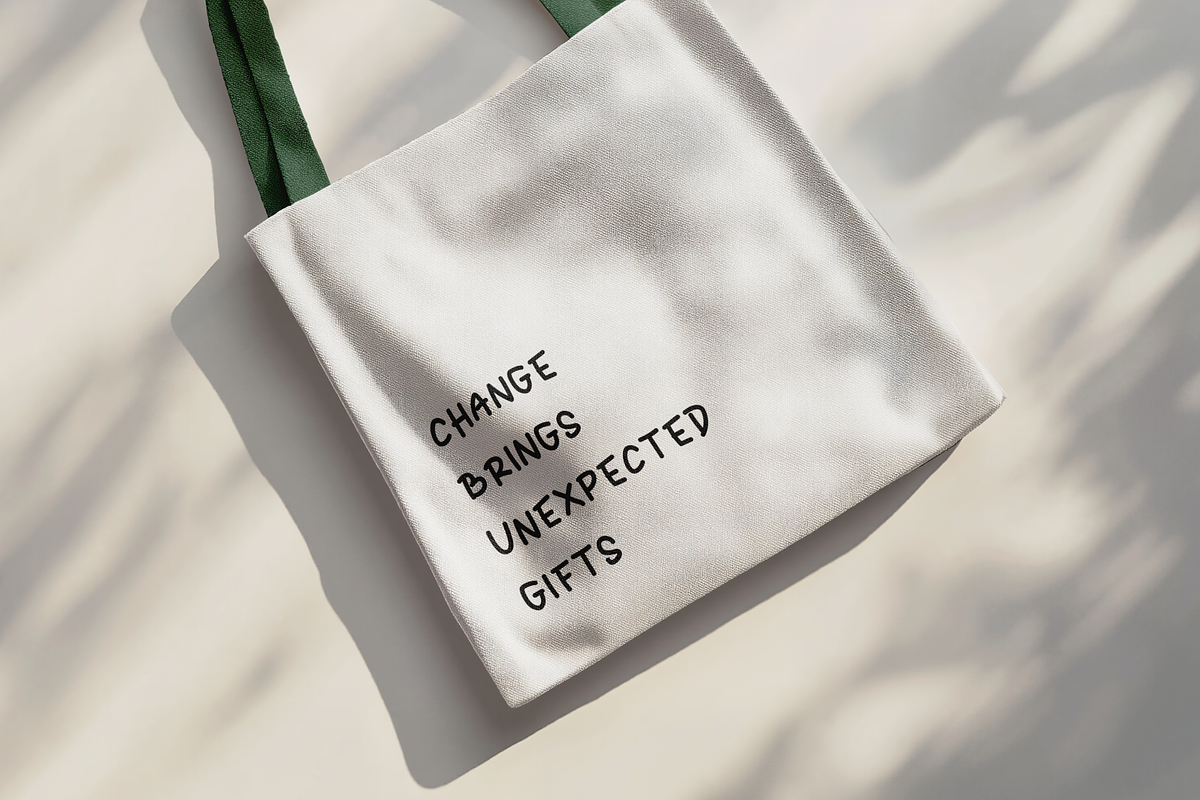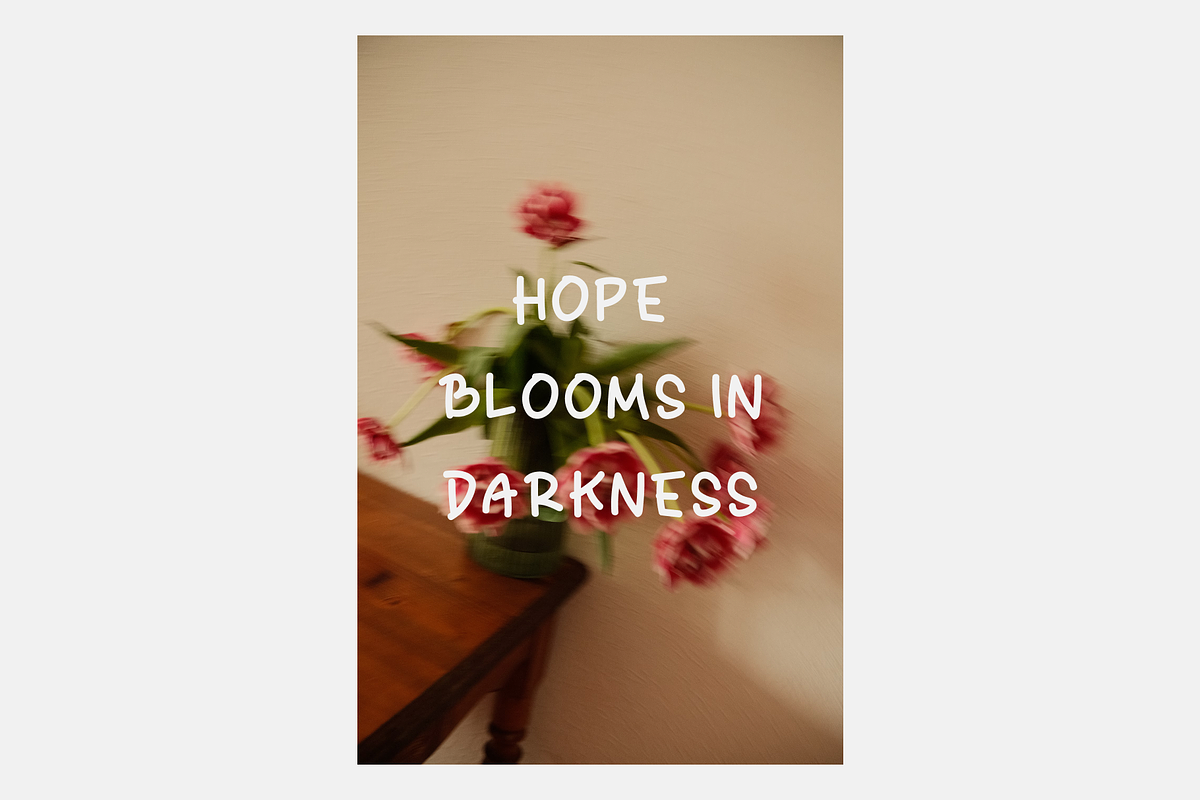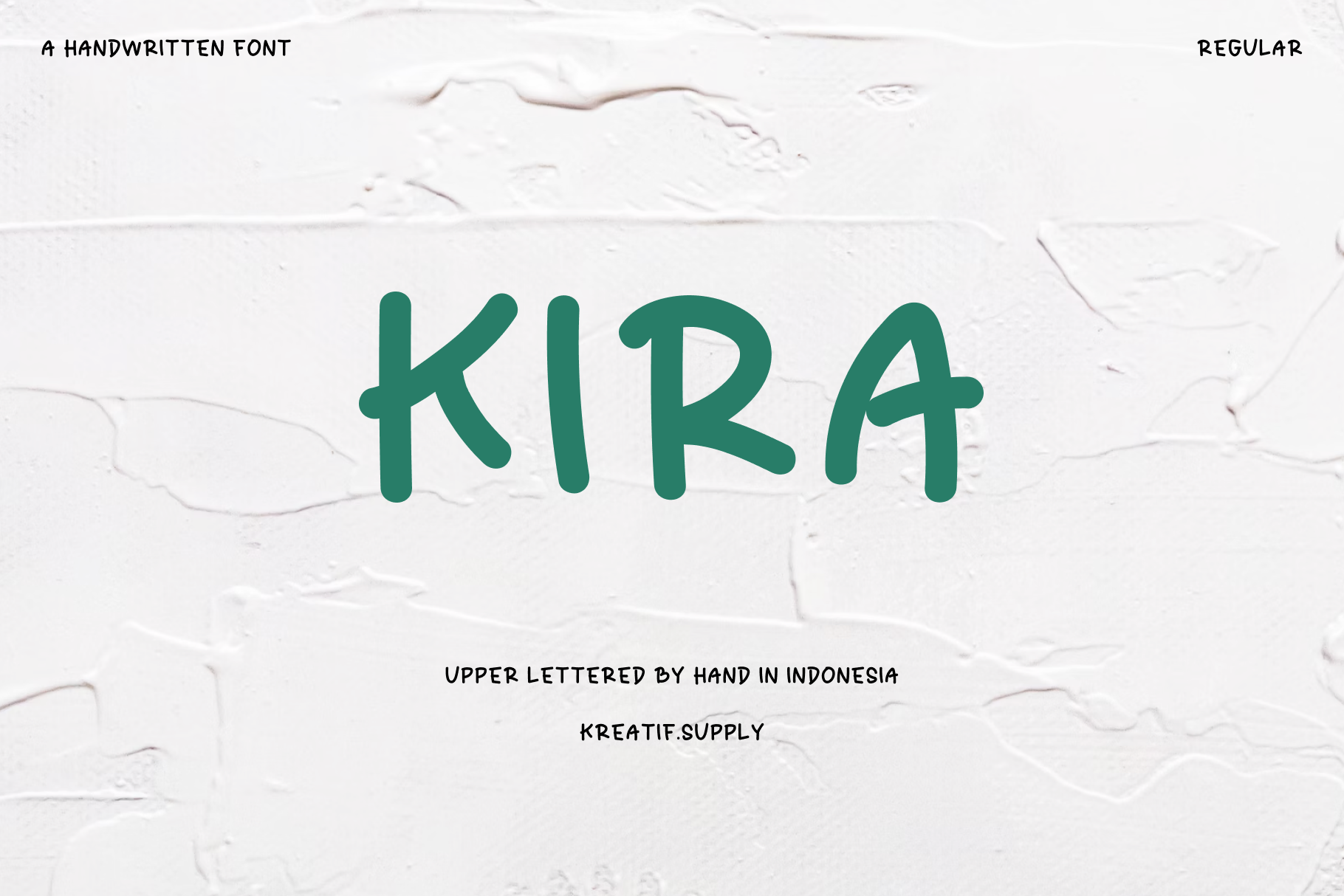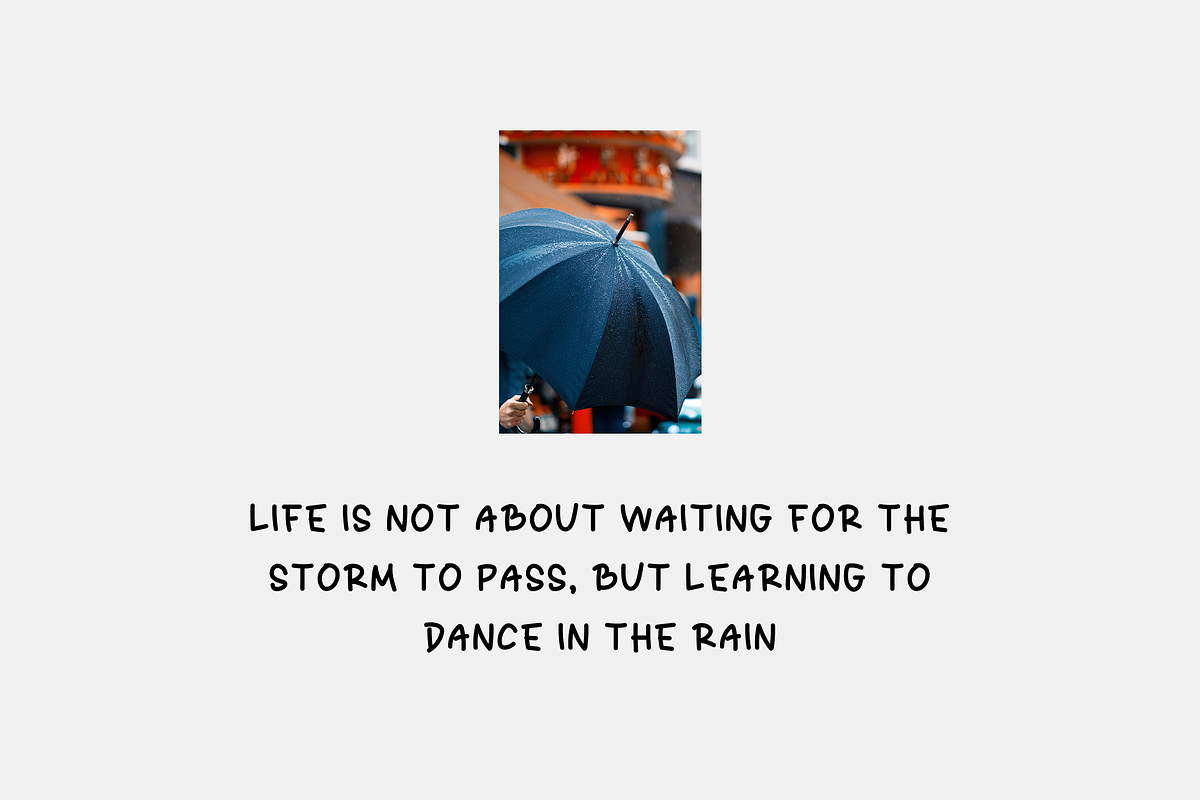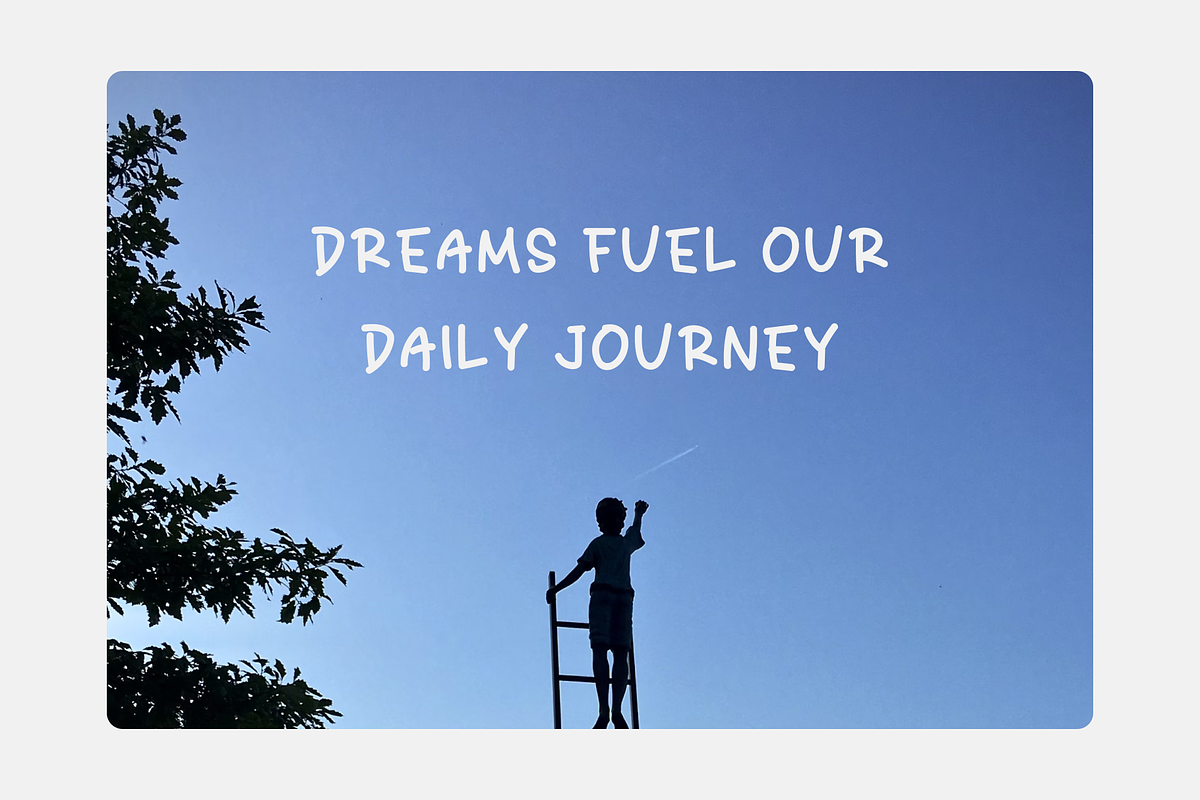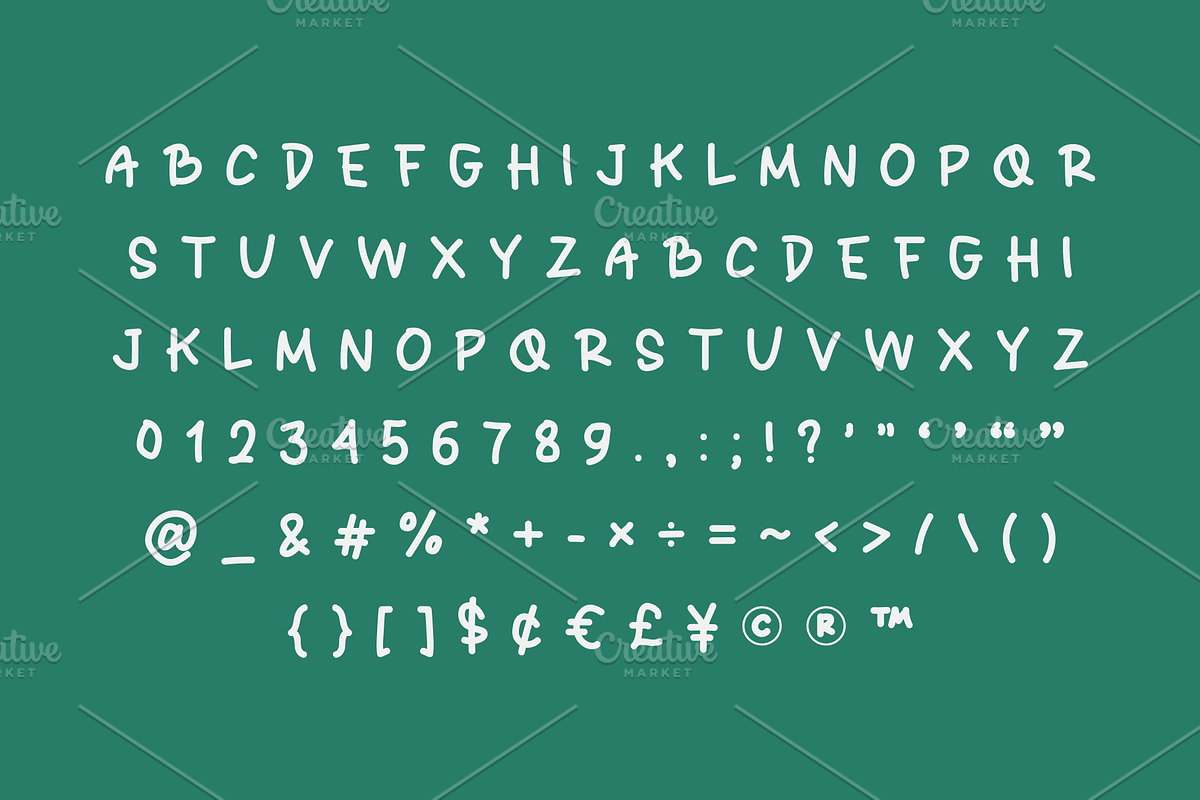
Kira - Handwritten Font
KIRA is a fresh, playful handwritten font that captures the spontaneity of natural brushstrokes with a modern twist. With its friendly character and casual elegance, KIRA brings warmth and personality to any project while maintaining excellent readability. The carefully crafted letterforms balance between polished professionalism and authentic hand-drawn charm.
The font includes letters, numbers, punctuation, and special characters including currency symbols and commonly used marks.
The slightly rounded edges and dynamic stroke variations give KIRA its distinctive personality - approachable yet refined. The letterforms feature subtle imperfections that maintain the human touch, while still appearing cohesive when used in various applications.
KIRA shines in contexts where you want to create an authentic, approachable connection with your audience:
- Branding for lifestyle, wellness, and creative businesses
- Social media graphics and digital content
- Packaging design for artisanal and handcrafted products
- Book covers and editorial headings
- Invitations and greeting cards
- Logo design and identity systems
- Children's products and educational materials
- Café menus and restaurant signage
- Quote graphics and inspirational content